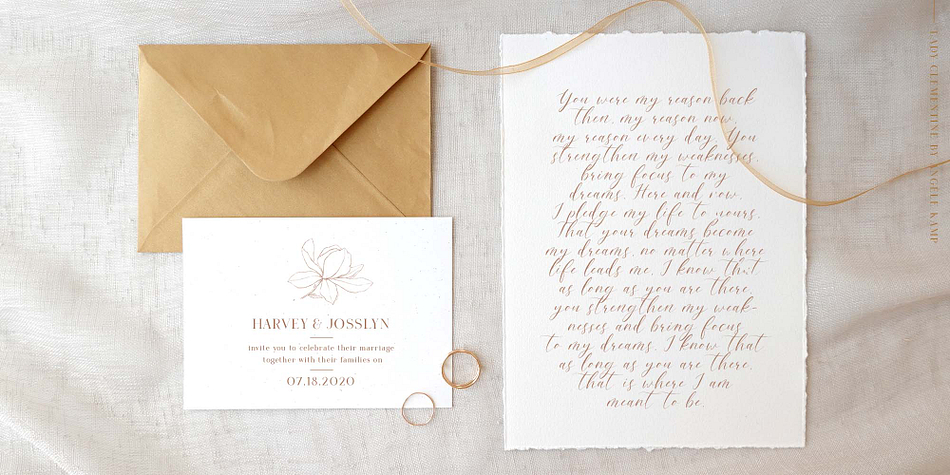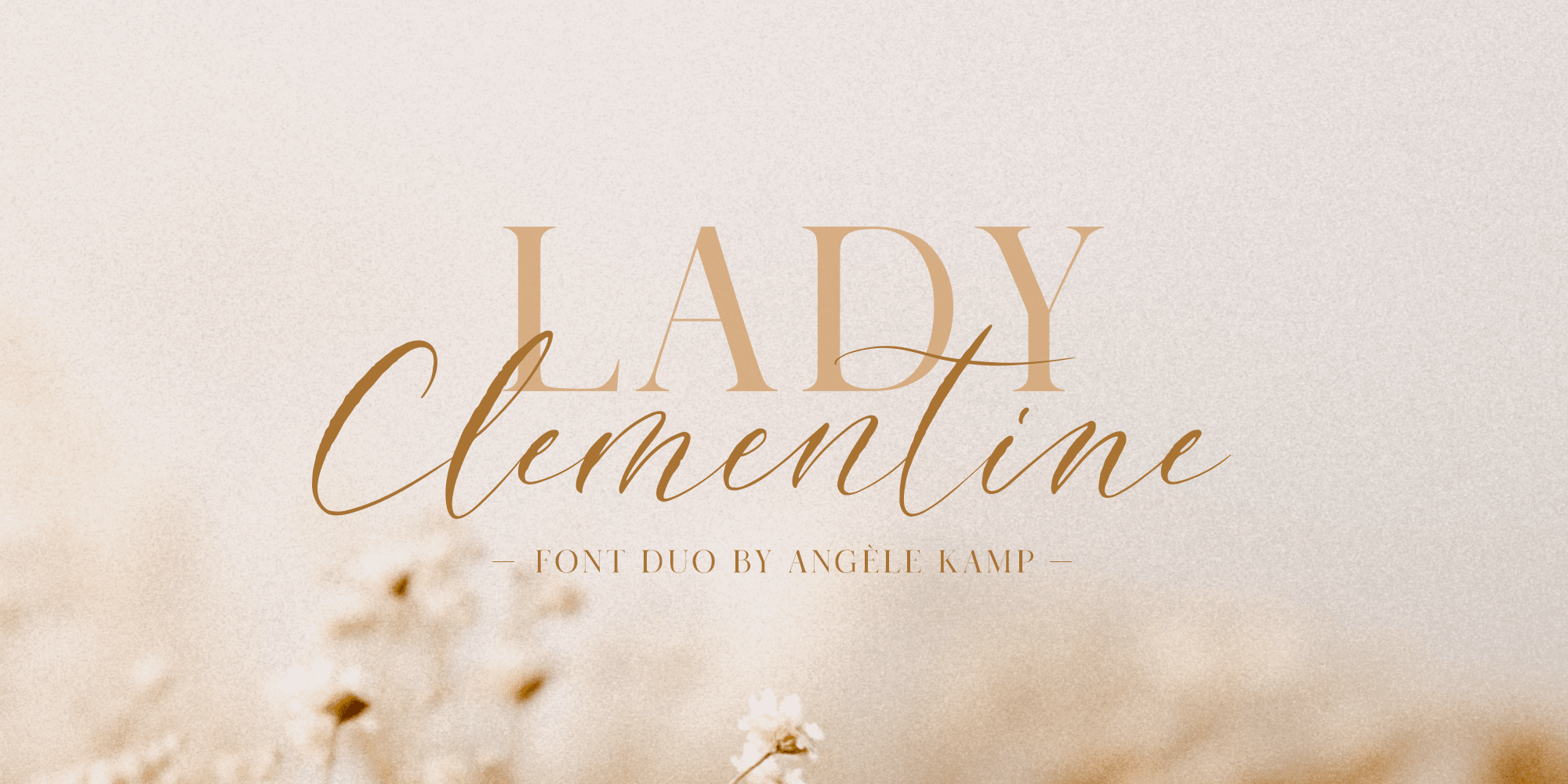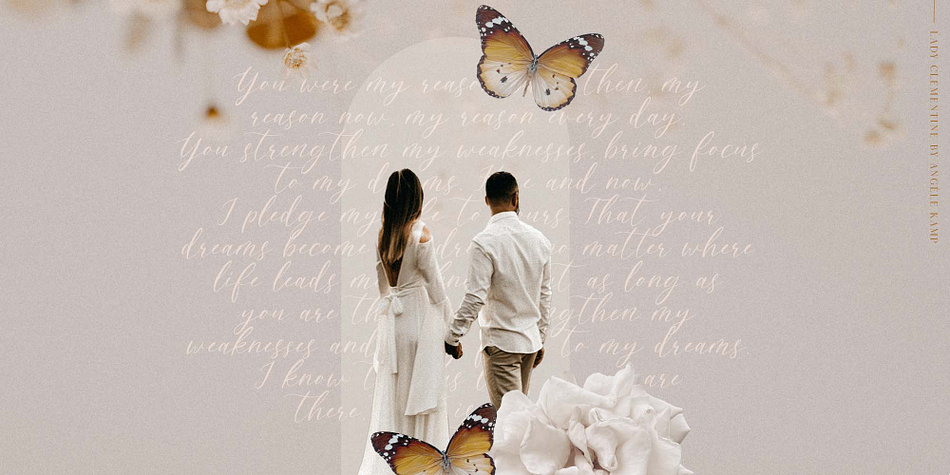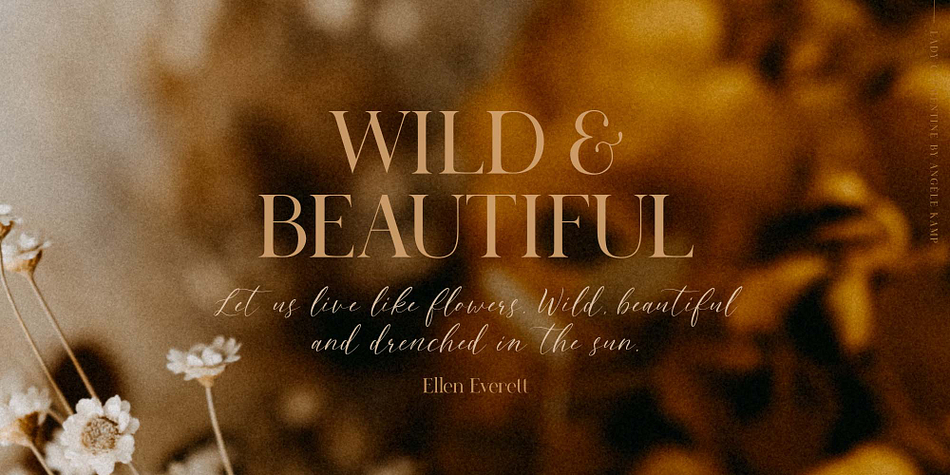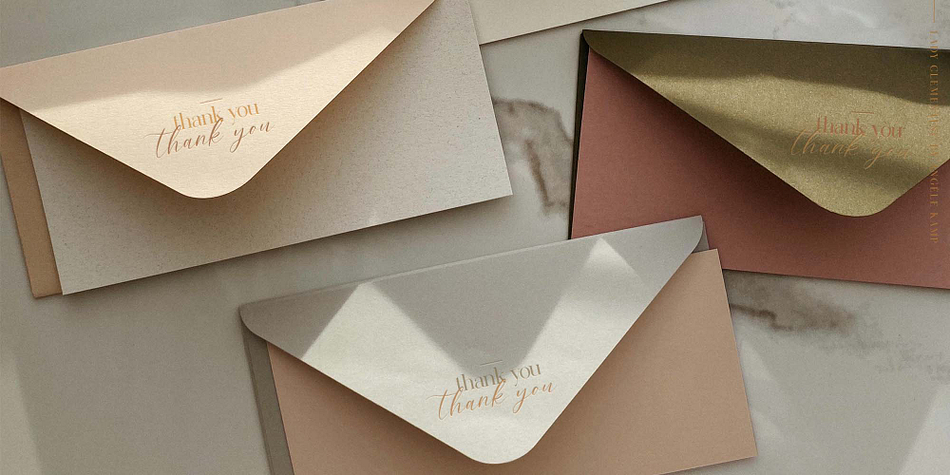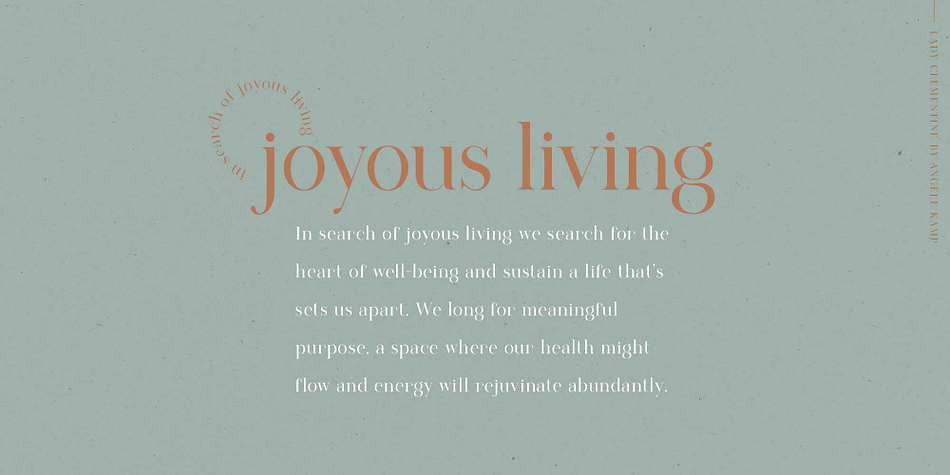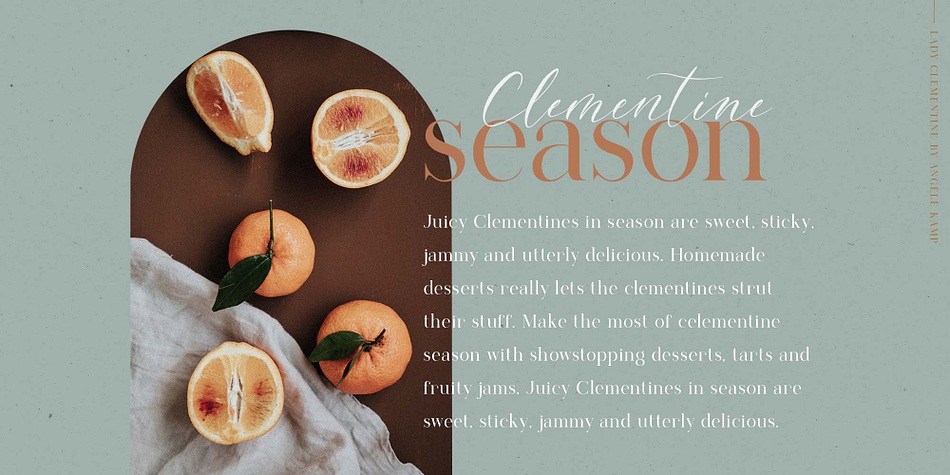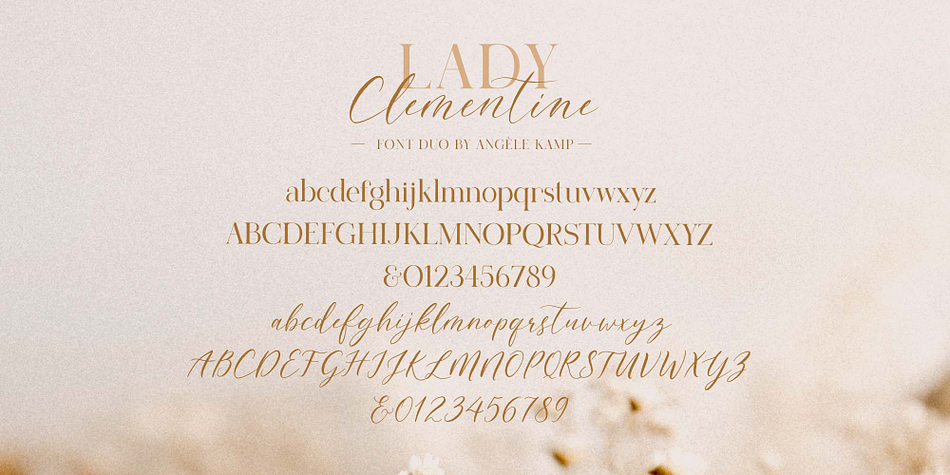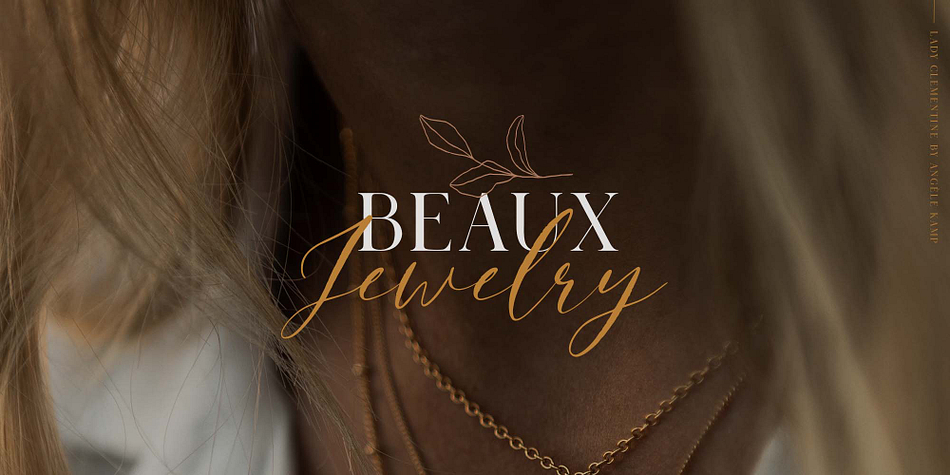
Designed by Angèle Kamp, Lady Clementine is a multiple classification font family. This typeface has two styles and was published by Angèle Kamp.
Meet Lady Clementine, a modern calligraphy script paired with a luxurious serif. A beautiful combination of fonts that will give your designs elegance and style.
This elegant font duo is timeless and can not be missed in your font collection. It is well suited for wedding invitations, save the date cards, stylish logos and feminine branding.